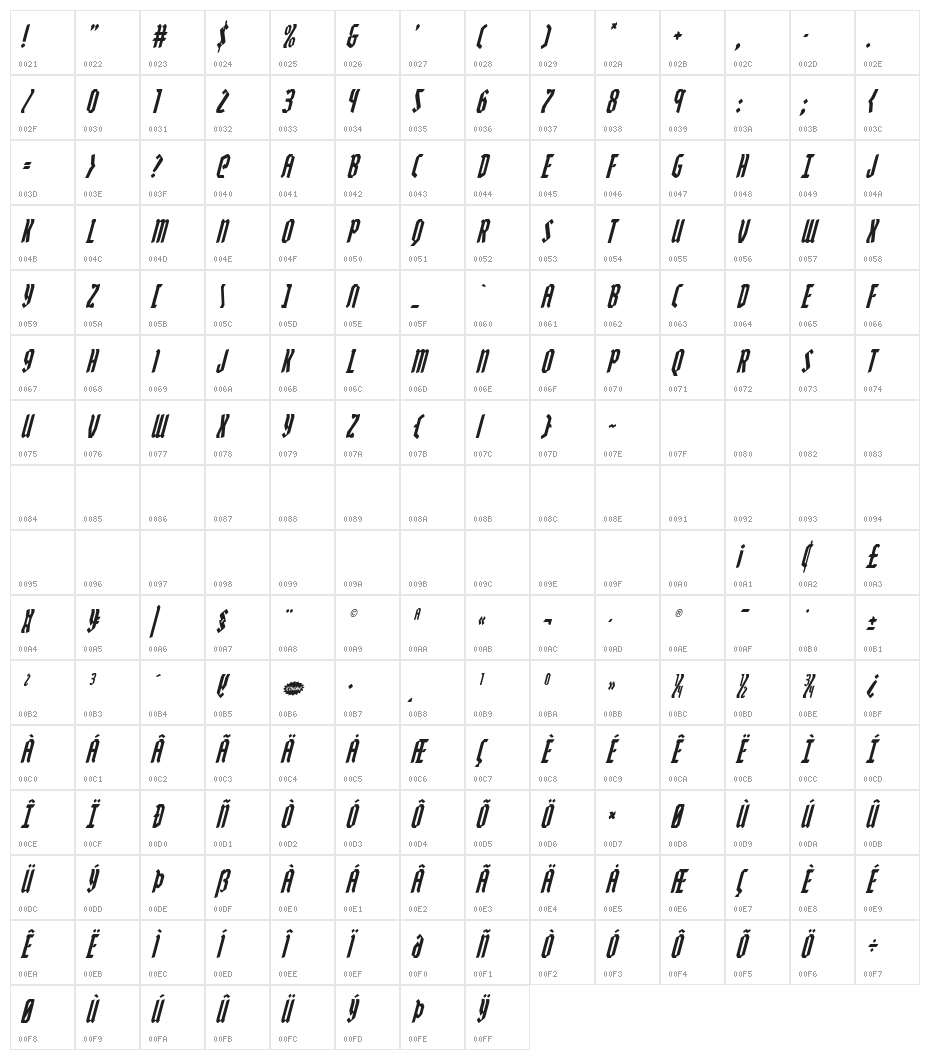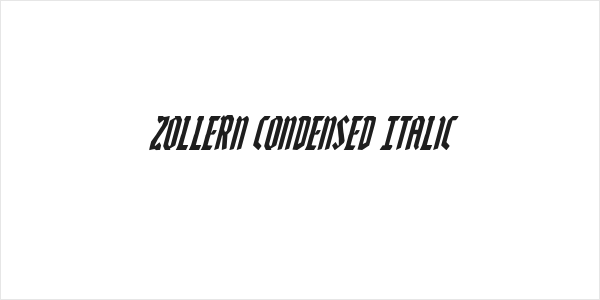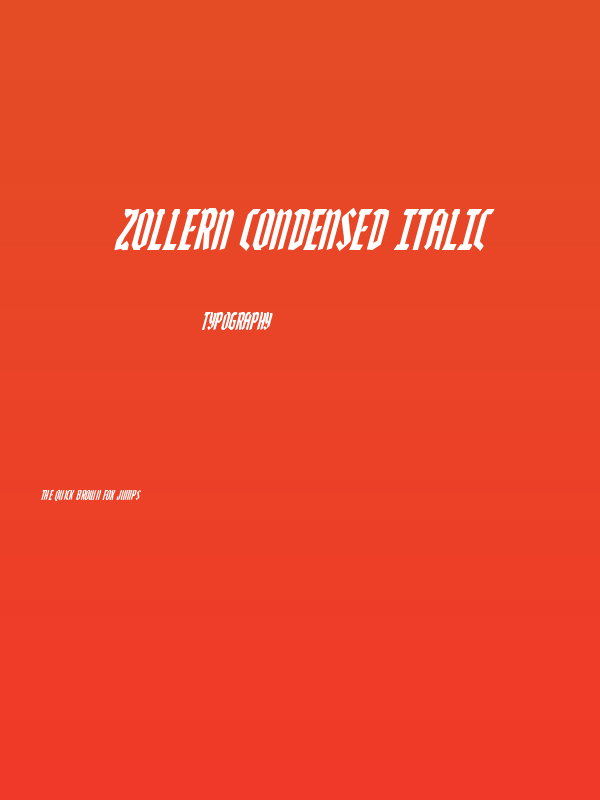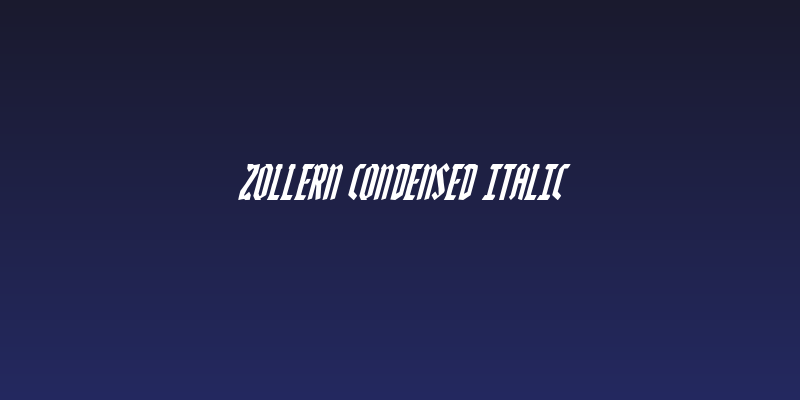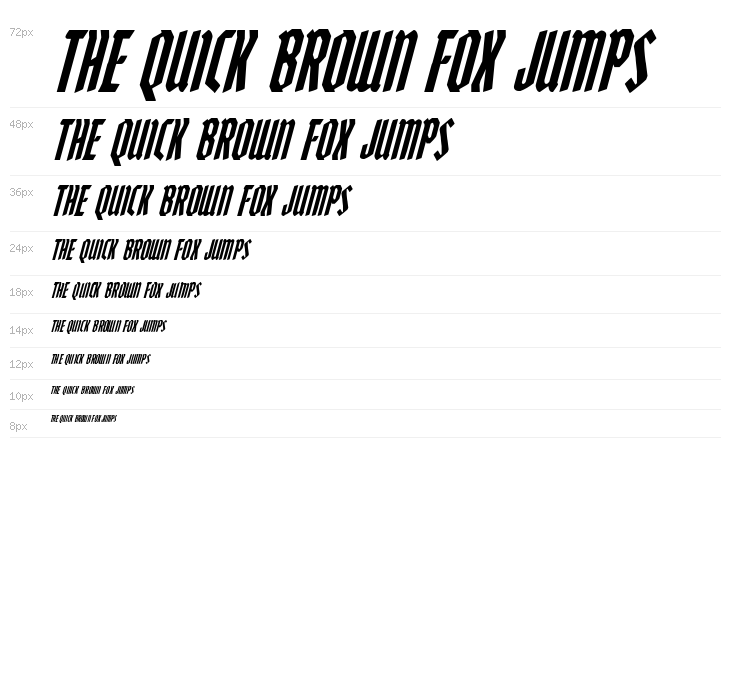
Zollern Condensed Italic Font
Zollern Condensed Italic Description
This font features a bold, condensed style with a distinct italic slant, giving it a dynamic and energetic appearance. The characters are sharply angled, creating a sense of movement and urgency. The uppercase letters are particularly striking, with strong vertical lines and sharp serifs that add to the font's boldness. The numbers and special characters maintain this angular style, ensuring consistency across all glyphs. The overall design is modern and eye-catching, making it suitable for attention-grabbing headlines or impactful branding.
| Proposed Projects | Ideal for use in headlines, posters, branding, and any design requiring a bold, impactful typeface. |